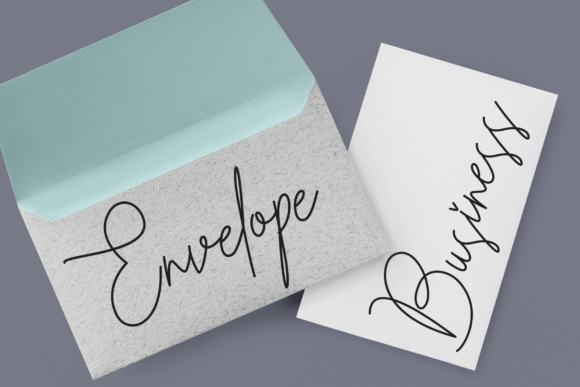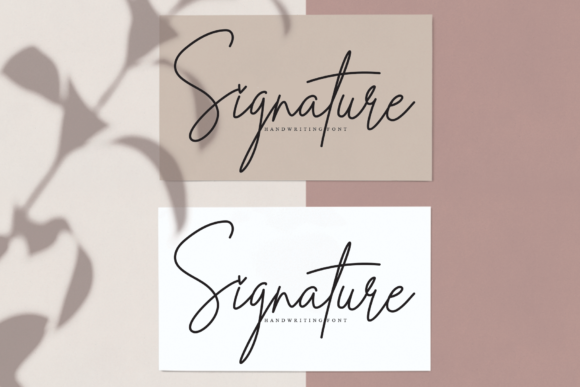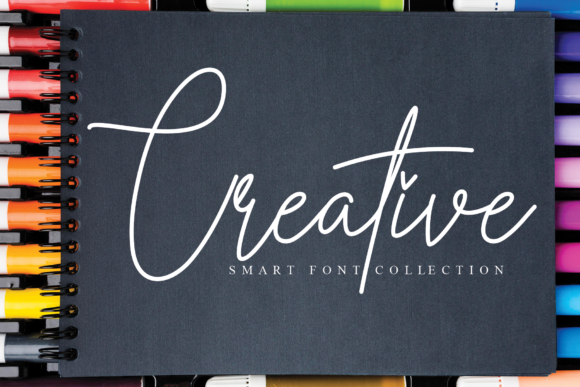
Hallenitta Font
About Hallenitta Font
Hallenitta is a thin and fashionable script font. It is the best choice for creating eye catching logos, branding and quotes. Every letter has a unique and beautiful touch, which will make your design come alive!